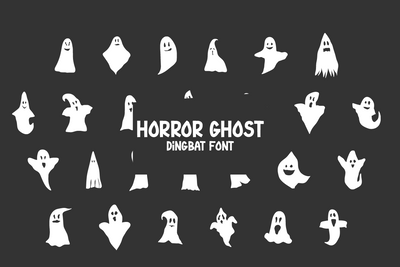
Horror Ghost - Dingbat Font
Horror Ghost is a unique and creative dingbat font. This font is inspired by the Halloween theme. This font contains glyphs of various ghost shapes!